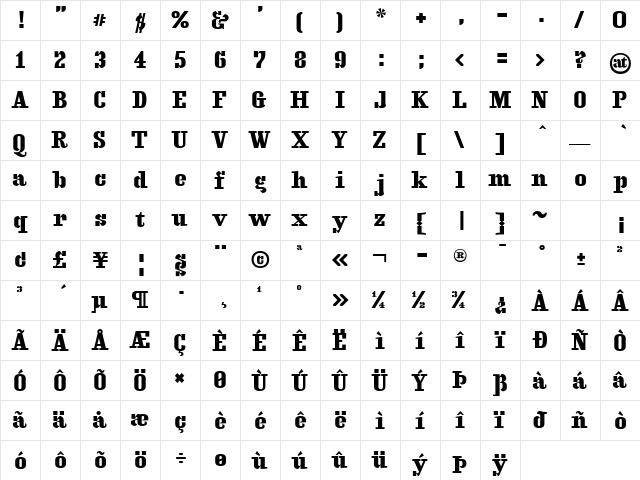
Beetle Regular
Design Context for Beetle Typeface
Beetle is a composed and adaptable typeface that performs quietly and consistently across a wide range of design contexts.